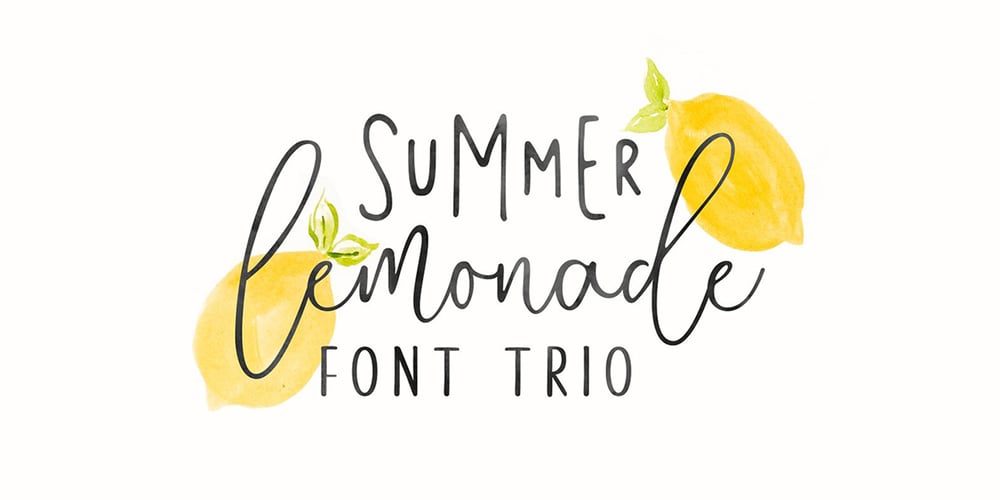
Summer Lemonade Font Family was designed by Muhammad Ardiansyah and published by Hart Foundry. Summer Lemonade contains 4 styles and family package options. A NEW FONTS HAS BEEN RELEASED!Summer Lemonade is a handwritten font trio, this font very easy to use and really playful. by combining three fonts, you can explore to create a combination that would have been nice.Your will receive 4 font files: Summer Lemonade Script • This font have two different style, uppercase acts as lowercase. so in this font have two lowercase and its terms can be combined as alternative. Summer Lemonade Doodles • These are the doodles we use in the display. So you can use it like an existing display. Please type A-Z to see all. Summer Lemonade Sans One • This fonts have uppercase and lowercase, and if you create a word, you can make like a bouncing effect. like the word “summer” in the main display. Summer Lemonade Sans Two • This font all caps only, so you can play around with all of these fonts and create something funny and awesome. I really hope you enjoy using this font, please don’t hesitate to drop me a message if you have any question :)-Hart